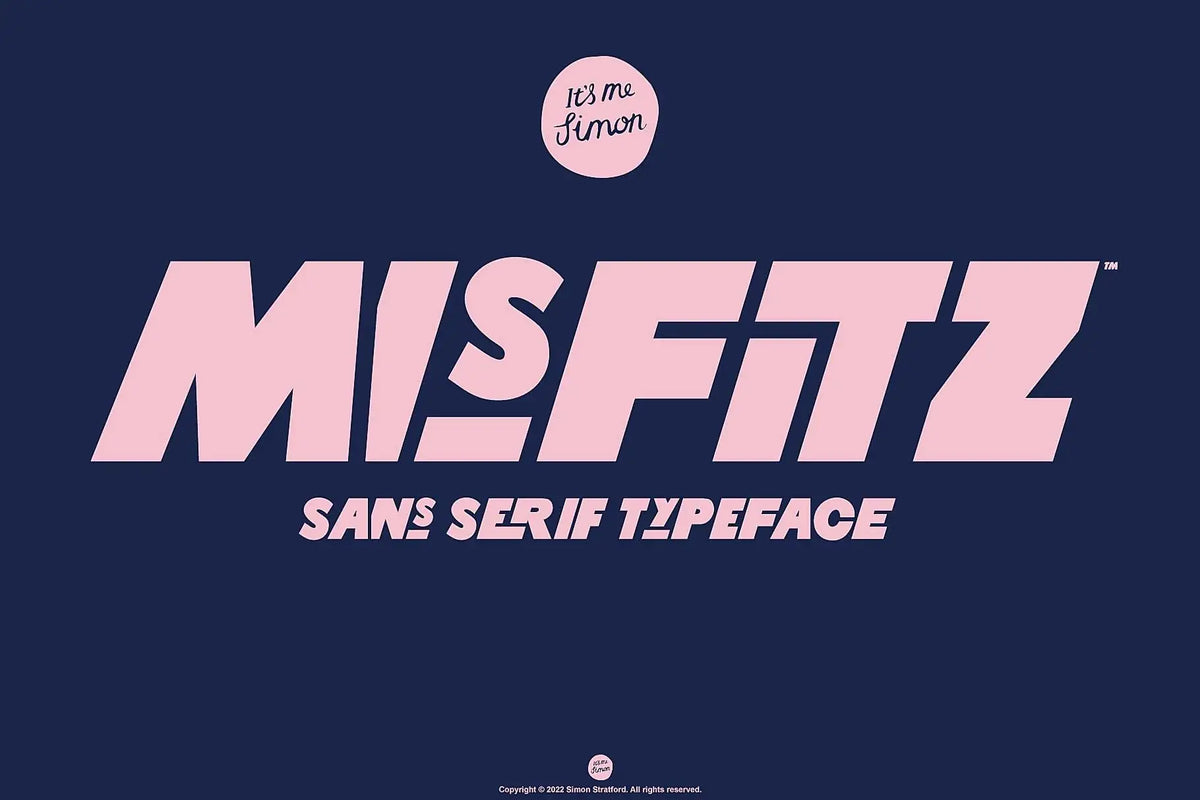
Misfitz font began with me playing around on an iPad, sketching letters and seeing where they went. There wasn’t a grand plan. I was experimenting with bold geometric shapes and unusual proportions. Those loose drawings eventually became a complete sans-serif display typeface, with plenty of alternate characters and interlocking letter combinations to play with.
It started with messing about
There wasn’t a brief. I was drawing in Procreate with an Apple Pencil and seeing what happened. I changed proportions, moved letters around and kept the ideas that looked interesting.
I wanted the letters to share the same basic structure without looking identical or overly controlled. Some became wide, others narrow. Certain characters tucked into their neighbours, while others stood apart and took up more room.
The uneven rhythm became the point. The letters belonged together, but they didn’t need to look identical.
Where the design came from
The shapes came from two places: bold geometric lettering from the 1930s and late nineteenth-century American wood type. I liked the clean construction of the geometric lettering, but also the uneven proportions and personality of the wood type. That mix gave Misfitz its character.
Why I called it Misfitz
The name is a play on the word misfits. I changed the final s to a z because I preferred the way it looked. Nothing more complicated than that.
I also liked the meaning. A misfit is someone whose behaviour, attitude or interests set them apart from the group around them. That suited the typeface: the characters belong together, but they don’t all follow the same rules.
Drawing Misfitz in Procreate
I still use paper a lot, especially when I want marks that Procreate can’t quite replicate. If I’m after the look of a dip pen or brush, with all its detail and natural imperfections, nothing beats real ink, paper and a decent brush.
For a more rigid font like Misfitz, though, the iPad was much quicker. I could change shapes, test ideas and bin the bad ones without too much faff. There was still plenty of work before the sketches were ready for Glyphs, but keeping the early stages digital sped up the whole process.
Once the alphabet had a consistent direction, I exported the drawings into Adobe Illustrator. This was where I cleaned the outlines, tightened the shapes and removed the less useful wobble.
Turning the drawings into a working font
After cleaning the letterforms in Illustrator, I used Fontself to turn the vectors into a working font quickly. That gave me something I could type with and test before moving the project into Glyphs.
From there, the job became more technical.
In Glyphs I cleaned the outlines again, corrected the spacing and set the left and right sidebearings for every character. Sidebearings control the space immediately beside each letter. Get them wrong and even beautifully drawn characters produce ugly words.
Once the spacing worked, I kerned the whole typeface. It’s not the glamorous bit, but it needs doing.
Adding alternate characters and interlocking letters
The standard alphabet was only the beginning. Misfitz includes contextual alternates, stylistic sets and interlocking letter combinations.
The alternate characters let designers change the width and rhythm of individual words. Some forms are wider or narrower; others alter the personality of a particular letter. The interlocking pairs pull selected characters together to create tighter, more deliberate shapes.
These features suit logos, packaging and headlines because the overall silhouette of a word matters. Changing one character can completely alter the balance without forcing you to redraw the lettering manually.
What Misfitz was made for
Misfitz works best when the type needs to carry the design: logos, packaging, posters, advertising and editorial headlines. The changing widths, unusual proportions and alternate characters give short words a strong shape. It isn’t meant for long passages of body copy.
A font for people who prefer the odd one out
Misfitz began as an experiment. I drew a collection of geometric letters on an iPad, let their proportions wander and followed the interesting bits.
The finished font keeps the idea I started with: geometric letters with unusual proportions and enough variation to make a word feel designed rather than simply typed. It’s geometric without looking like a Google rebrand.
Frequently asked questions
How was Misfitz font created?
I drew Misfitz in Procreate using an Apple Pencil. I exported the drawings to Adobe Illustrator to clean the vector outlines, used Fontself to create an initial working font and completed the spacing, kerning and technical development in Glyphs.
Does Misfitz include alternate characters?
Yes. Misfitz includes contextual alternates, stylistic sets and interlocking character combinations that let you adjust the shape, width and rhythm of words.